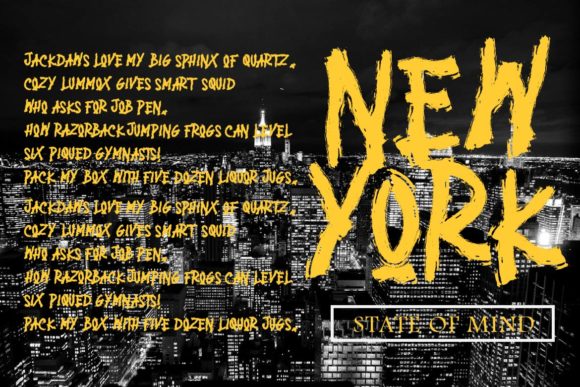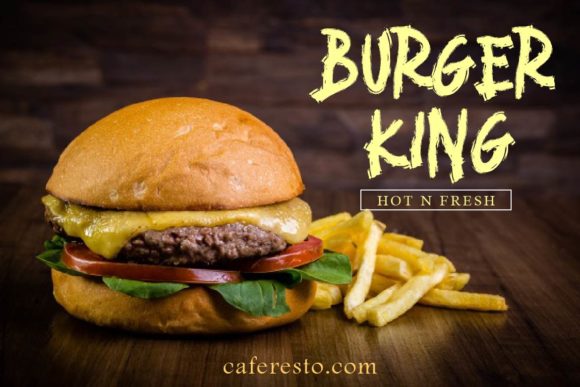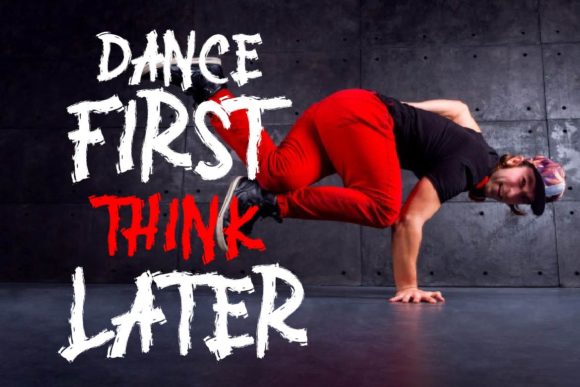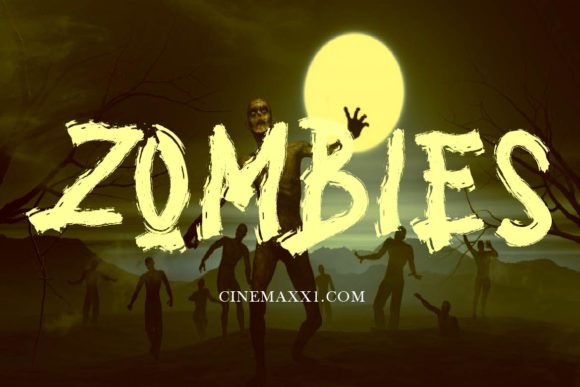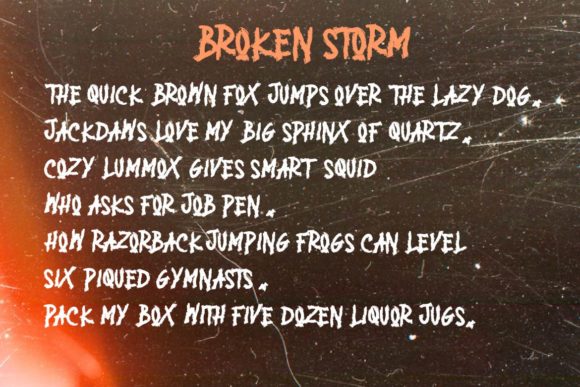
The Perfect Storm of Creativity: Introducing Broken Storm Font
We’ve all been there – staring at a blank page, trying to come up with the perfect idea, and feeling like our creative well is running dry. But what if I told you that the key to unlocking your next big project lies in a quirky little font? Enter Broken Storm Font, a display font that’s as unique as it is versatile.
Broken Storm Font is designed to add a touch of whimsy to your designs, whether you’re working on a marketing campaign, a logo, or even a personal project. Its eclectic style and varied letterforms make it an ideal choice for designers looking to add some visual interest to their work. And with its wide range of applications, you can trust that Broken Storm Font will be just as at home on a bold billboard as it is on a delicate invitation.
Broken Storm Font Key Features
- Unique Characteristics: The Broken Storm Font features a distressed, weathered look with irregular letterforms and subtle texture, adding a touch of ruggedness to any design.
- Character Set: The font includes a comprehensive set of characters, including uppercase and lowercase letters, numerals, punctuation marks, and special characters, making it suitable for use in various languages.
Broken Storm Font Review
Overall, I think the Broken Storm font is an interesting choice for designers who want to add a touch of ruggedness to their projects. Here are some aspects where it shines: ✨
- Unique character: The font has a distinctive, hand-drawn feel that sets it apart from more generic fonts.
- Emotional impact: The Broken Storm font can add a sense of drama and intensity to text, making it suitable for headlines or titles.
- Good for creative projects: Its quirky, unpredictable nature makes it a great fit for art, design, or other creative projects where a non-traditional font is desired.
- Readability: The font can be difficult to read, especially in smaller sizes or when used for large blocks of text.
- Limited versatility: While the font is great for creative projects, it may not be the best choice for more formal or professional contexts.
- Not suitable for body text: Due to its rugged nature, the font is not ideal for long paragraphs or body text, where clarity is essential.
Overall, I think the Broken Storm font is a great addition to any designer’s toolkit, but it’s essential to use it judiciously and in the right context. With its unique character and emotional impact, it can be a powerful tool for adding visual interest to designs.
The Broken Storm Font is ideal for:
- Creating a distressed, vintage look.
- Adding texture and depth to your designs.
- Designing for music, art, or fashion brands.
For best results, pair Broken Storm Font with bold, contrasting colors and creative typography.
Q: What is the character set and language support for the Broken Storm Font?
The Broken Storm Font includes a wide range of characters, including uppercase and lowercase letters, numbers, punctuation marks, and special characters. The font also supports multiple languages, including English, Spanish, French, German, Italian, and many others. You can view the full character set and language support on our website or in the font’s documentation.